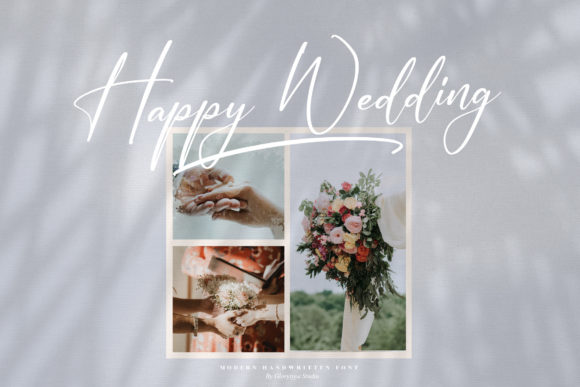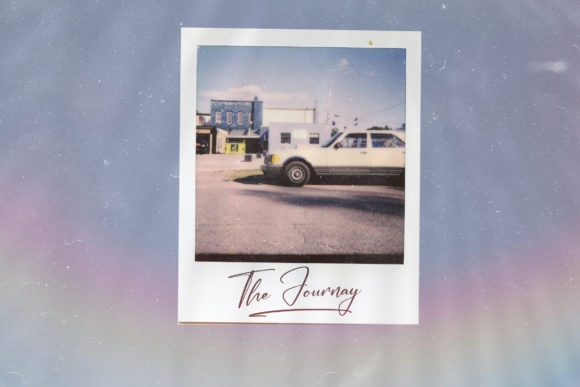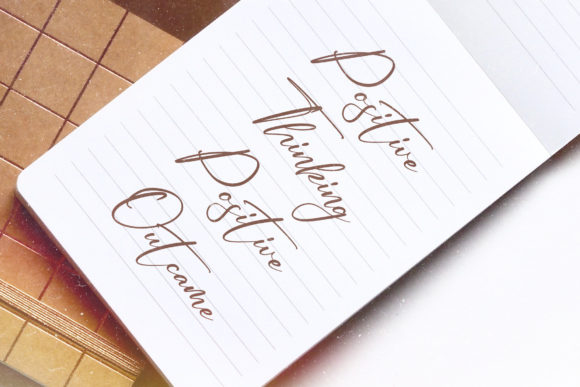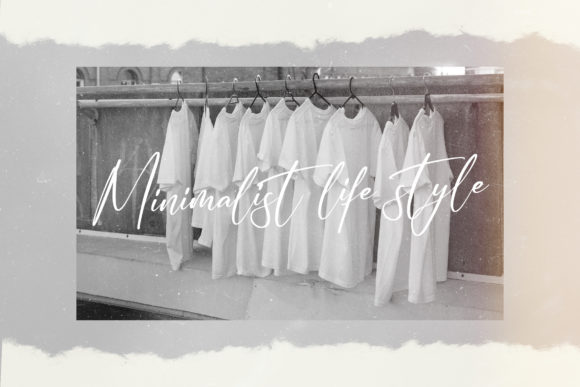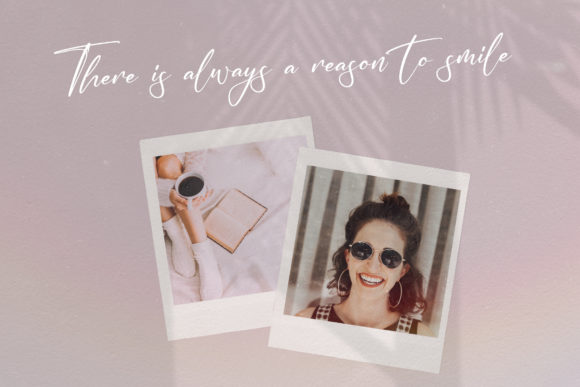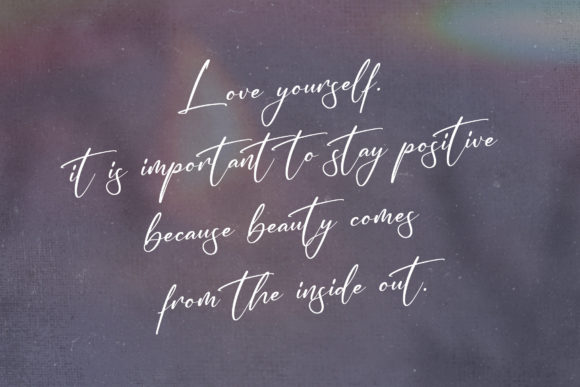
Unleash Your Creative Voice with Diary Emillda Font
There’s something special about putting pen to paper and watching your ideas come to life. Maybe you’re a writer, a designer, or simply someone who loves to express themselves through art. Whatever your creative pursuit, there’s a moment when the words or marks on the page start to flow, and everything feels just right. That’s the magic of creating.
For designers and artists looking to add a touch of elegance and sophistication to their work, Diary Emillda Font is a treasure trove of possibilities. This beautiful, thin-lettered script font is PUA encoded, making it easy to access all the glyphs and swashes you need to bring your vision to life. With Diary Emillda Font, the possibilities are endless, and your creativity will shine through in a way that’s uniquely yours.
Diary Emillda Font Key Features
- Font Family: Diary Emillda Font is a handwritten font family that includes multiple weights and styles, making it suitable for various design projects.
- Character Count: The font family includes over 700 characters, including uppercase and lowercase letters, numbers, punctuation marks, and special characters.
- Unique Characteristics: The font features a unique, hand-drawn design with subtle imperfections and variations, giving it a personal and emotive feel.
- Resolution: The font is designed to be high-resolution, making it suitable for use at large sizes and in high-resolution applications, such as printing and digital signage.
Designer Review: Diary Emillda Font
Overall, I’m impressed with the unique charm of the Diary Emillda Font. It’s a font that’s sure to add a touch of whimsy to any project. Here are some things that really stand out:
- ✨ The font’s hand-drawn feel is endearing and adds a personal touch to text.
- ✨ The varied letterforms and flourishes create visual interest and keep the text engaging.
- ✨ The font is highly customizable, with multiple weights and styles to choose from.
- ⚠️ The font may not be the best choice for body text, as it can be a bit overwhelming in large quantities.
- ⚠️ The font’s unique style may not be suitable for all types of projects or audiences.
Overall, I think Diary Emillda Font is a great addition to any designer’s toolkit. While it may not be the best choice for every project, it’s perfect for adding a touch of personality and whimsy to a design. With a little creativity and restraint, this font can really shine.